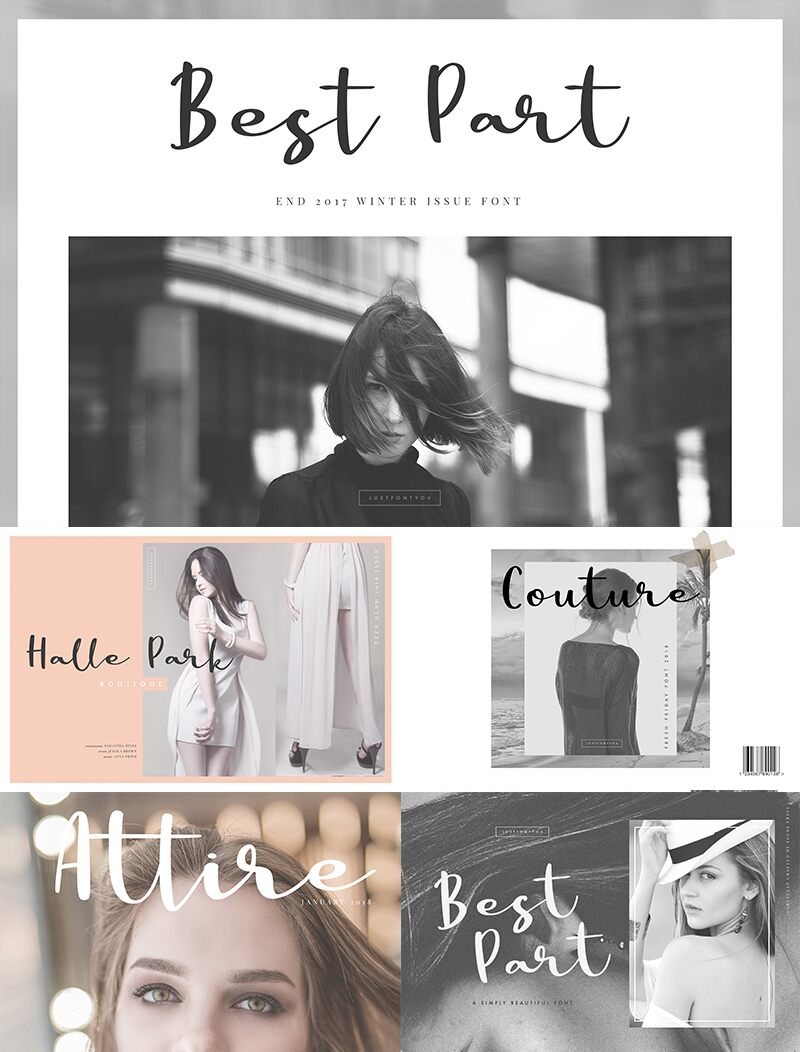
Best Part, an elegant yet casual fancy script typeface inspired by the casual fashion lookbook and classy feminine stuff nowadays. Perfectly fit for branding, logo, wedding things, greeting cards, fashion, lookbook, marketing promotion, anytime you want to look fancy elegant but still casual.